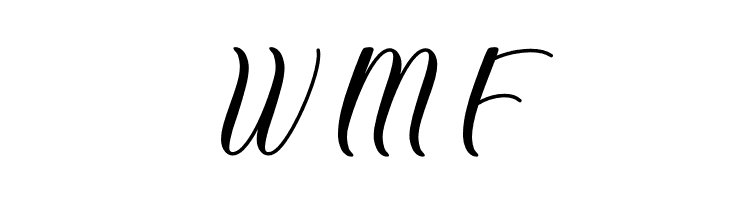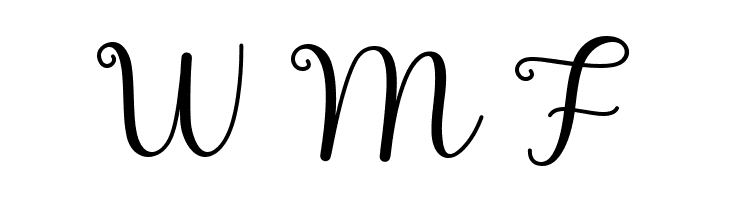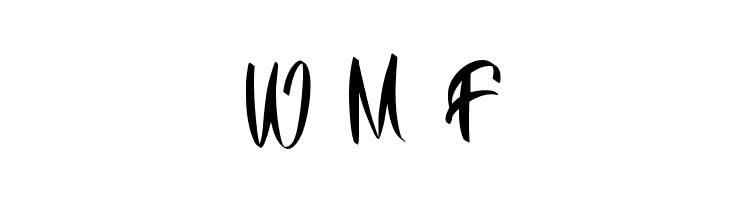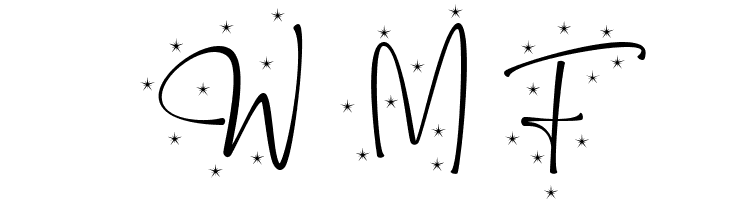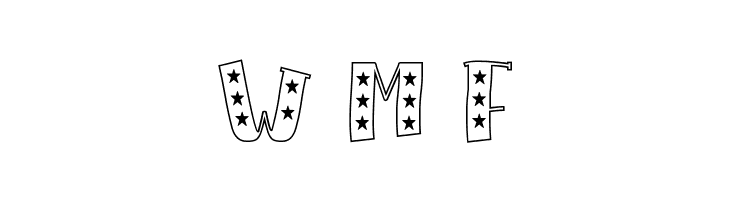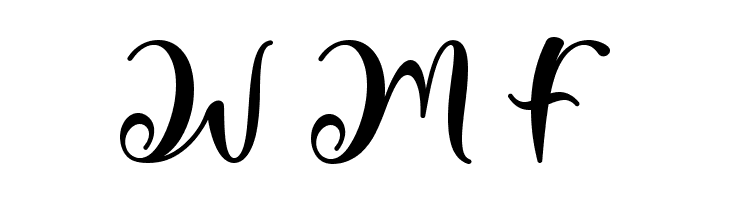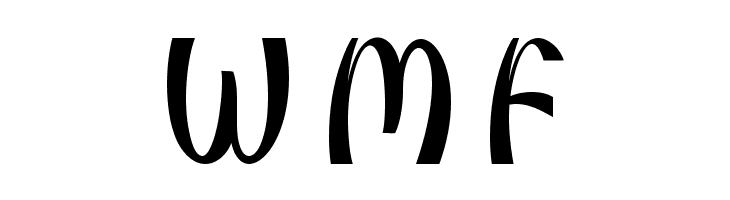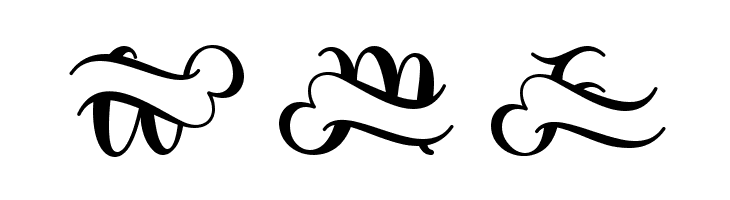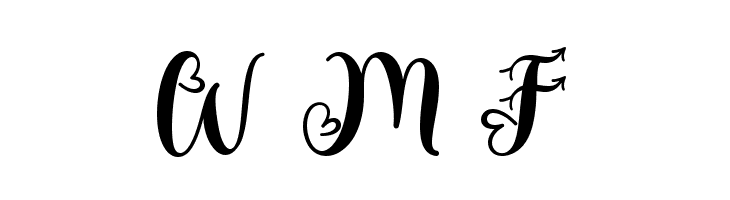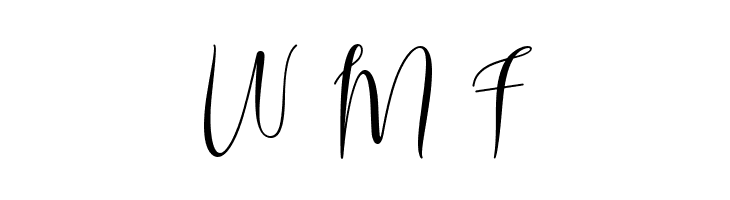
A whimsical and elegant script font with a hand-drawn, calligraphic style.
A playful handwritten font with fluid, dynamic strokes and a casual style.
Ornate script font with festive, swirling embellishments.
A fun, decorative font with a holiday-inspired, hand-drawn style.
A whimsical, festive script font with elegant swirls and loops.
Bold, brush-style script font with energetic, festive strokes.
Handwritten monoline script with a festive feel.
A charming, elegant script font with a handwritten, festive style.
A festive, elegant script font with flowing, calligraphic style.
A festive and elegant cursive font with decorative swirls, perfect for holiday themes.
A playful, handwritten font with bold, flowing strokes and a whimsical style.
Festive script font with Christmas-themed decorations.
Bold, modern script with expressive, hand-drawn strokes.
Elegant, high-contrast italic serif font with a classic feel.
An elegant, flowing script font with dynamic curves and decorative flourishes.
A decorative, modern script with a handwritten, calligraphic style.
Bold, decorative font with festive swirls and playful curves.
A decorative, high-contrast handwritten script with ornate flourishes.
A whimsical and elegant script font with flowing, interconnected letters.
Elegant, handwritten script with smooth, connected strokes.
Whimsical, decorative script with bold swashes and heart accents.
Whimsical, decorative script with festive swashes and heart accents.
Ornate script font with extensive flourishes and a festive appearance.
A playful, bold, and rounded font with a hand-drawn feel.
A whimsical, cursive script font with elegant, flowing lines.
Playful, decorative script with swirling, festive strokes.
A festive, star-adorned script font with a playful, hand-drawn style.
A festive, italicized handwritten font with snowflake embellishments.
A decorative snowflake-themed symbol set.
Bold decorative font with star cutouts, ideal for festive themes.
A festive, decorative font with star embellishments and curly accents, perfect for holiday themes.
A whimsical, festive font with playful curves and a handwritten calligraphy style.
A playful, star-filled decorative font perfect for festive projects.
A playful and elegant script font with decorative swirls and smooth cursive letters.
A festive, cursive font with elegant loops and swirls, perfect for holiday designs.